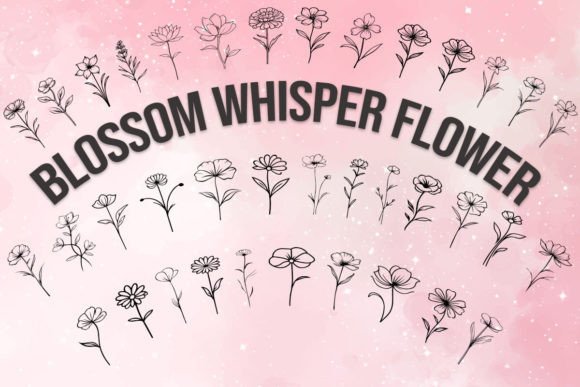
The Blossom Whisper Flower Font: Elevate Your Designs with Timeless Elegance
I’ll never forget the moment I stumbled upon the perfect font for a wedding invitation project. I had spent hours scouring the internet, trying out different fonts, but nothing seemed quite right. That was until I discovered the Blossom Whisper Flower Font. Its intricate characters and elegant design instantly captivated me, and I knew I had found the one. In this article, I’ll share my experience with this beautiful font, its features, and how you can incorporate it into your designs.
A Closer Look at Blossom Whisper
The Blossom Whisper Flower Font is a stunning collection of dingbats fonts that exudes charm and sophistication. Its graceful letters and elegant numbers make it perfect for a variety of projects, from wedding invitations to branding materials and creative ventures.
What I Love About Blossom Whisper
• ✨ Intricate and elegant character design
• ✅ Perfect for wedding invitations, branding materials, and creative projects
• 🌸 Beautifully crafted to add a touch of sophistication to your work
While Blossom Whisper is an amazing font, there are a few things to keep in mind:
• ⚠️ Limited language support, so it’s best suited for English or languages that use similar character sets
• 🤔 Some characters may require manual kerning for optimal spacing
The Story Behind Blossom Whisper
The Blossom Whisper Flower Font was inspired by the delicate beauty of flowers and the elegance of handwritten scripts. Its creator, a talented type designer, aimed to craft a font that would evoke a sense of sophistication and refinement. The result is a stunning collection of characters that will add a touch of timeless elegance to your designs.
Is Blossom Whisper suitable for body text? While Blossom Whisper is a beautiful font, it’s best suited for titles, headings, and short paragraphs. For body text, you may want to choose a more readable font.
With its elegant character design and versatile compatibility, the Blossom Whisper Flower Font is a great addition to any designer’s toolkit. Whether you’re working on a wedding invitation, branding materials, or creative projects, this font is sure to elevate your designs with timeless elegance.